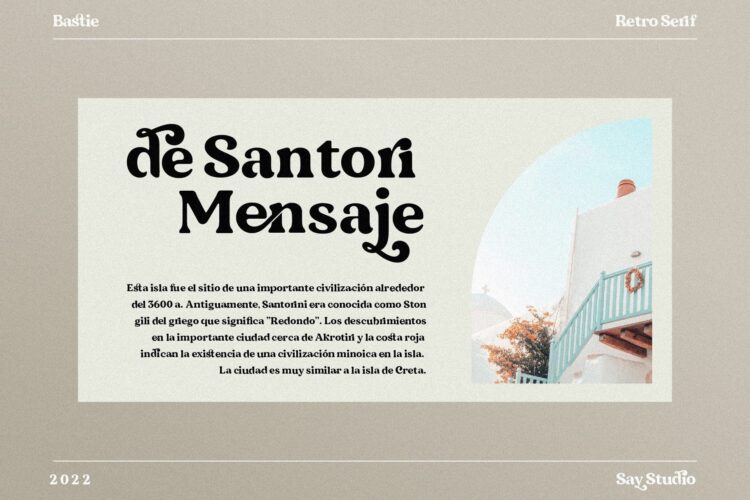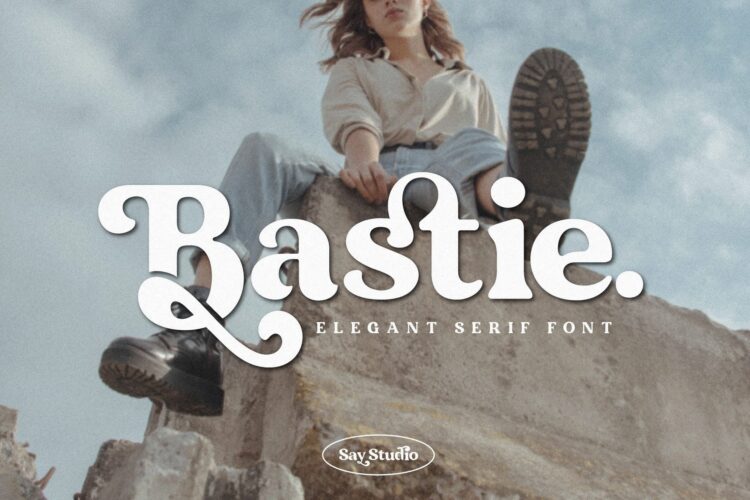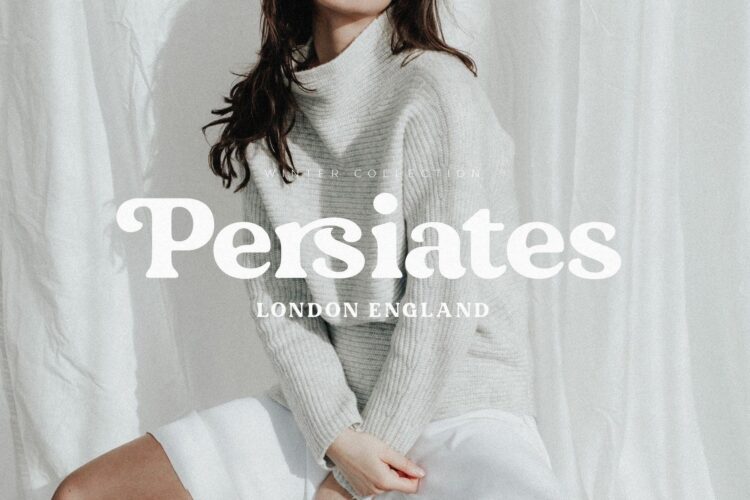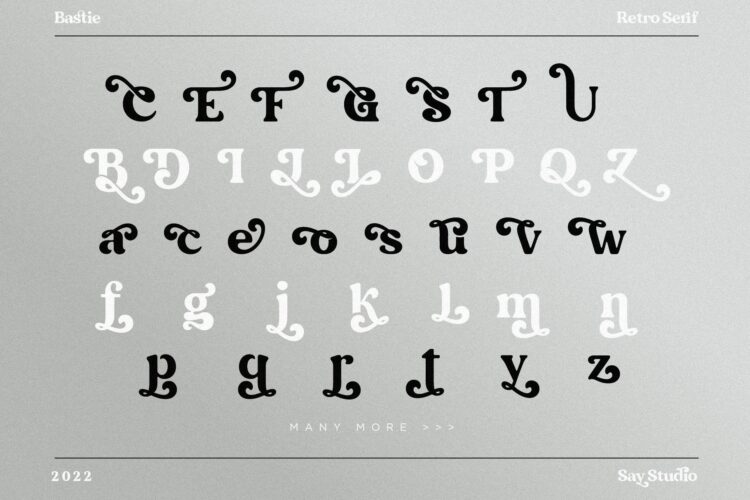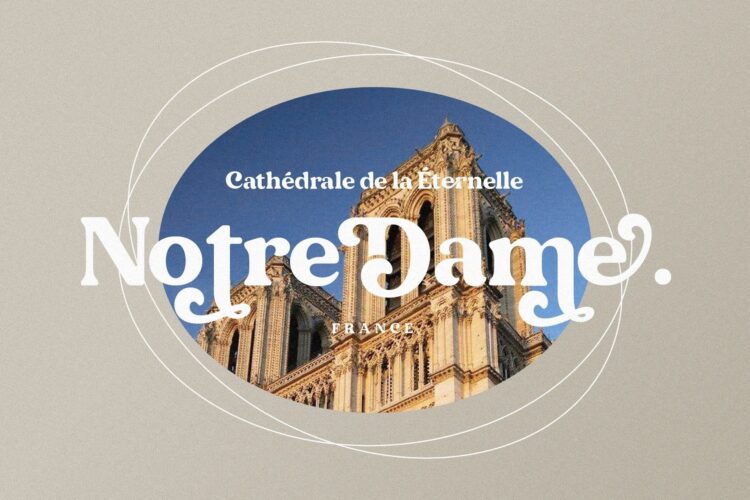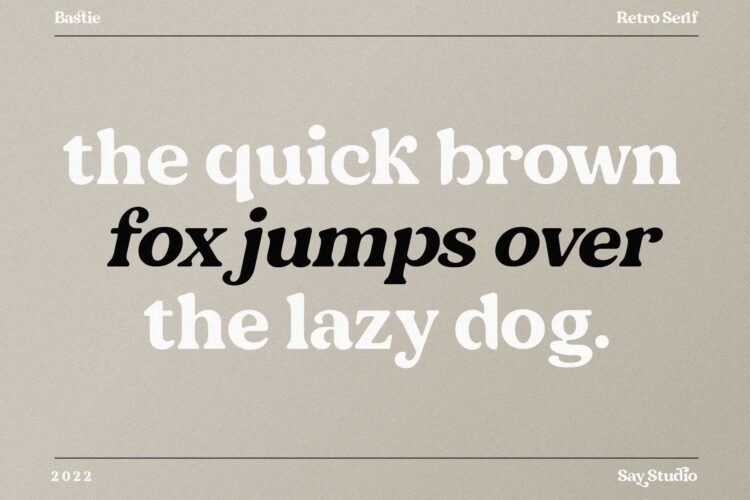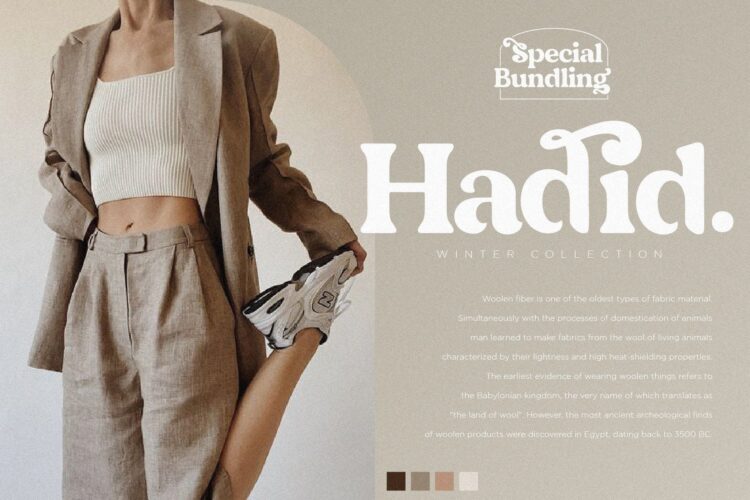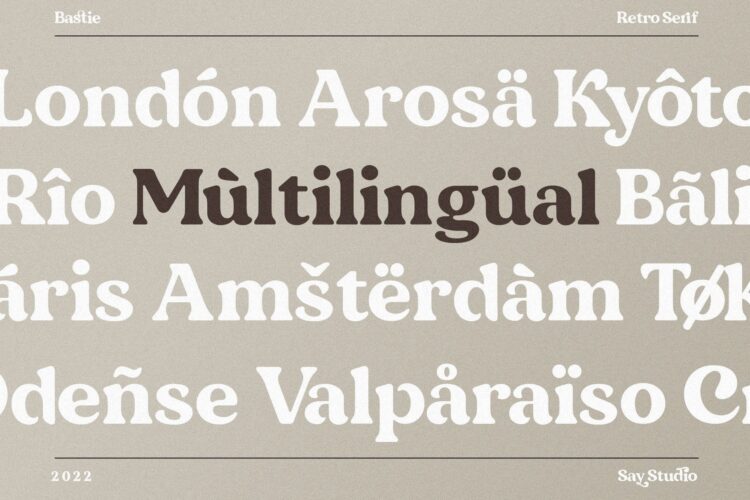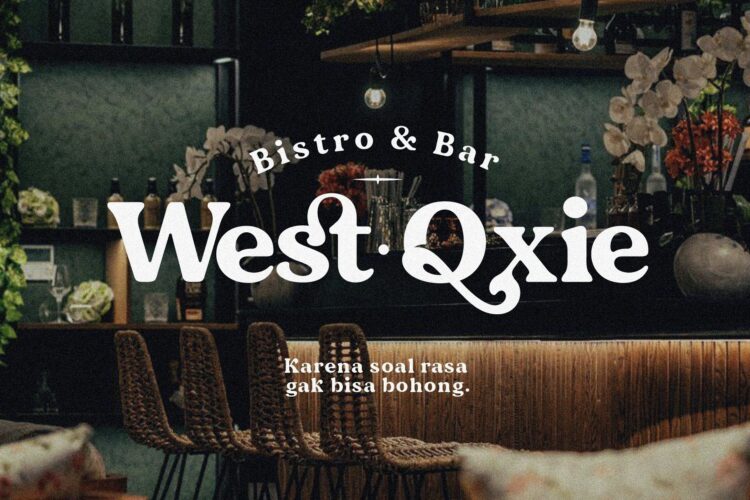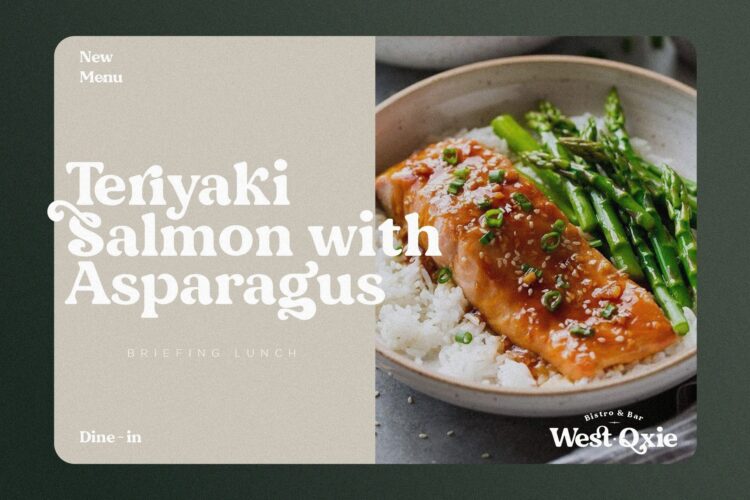
Bastie – Elegant Serif Font
Unique, playful and versatile serif with 35+ ligatures and 50+ alternates can combine to get curves and beautiful shapes just in seconds.
Type the words and Add the unique shapes from Bastie ornament to get a more stunning display.
This font is suitable for many design forms, such as magazines, postcards, logos, DIY Projects, invitation cards, quotes, vintage look design, an old classic, the 60s, 70s, 80s, wedding projects and much more.